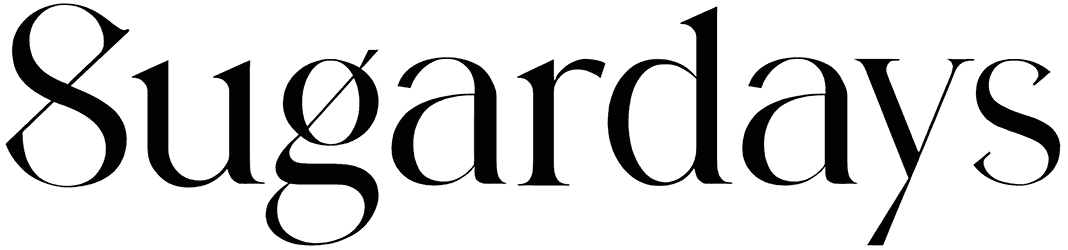
Sugardays Font
Isn’t it just the best when you leave everything to the fancy style of Sugardays and let it promote your business more fashionably than ever? Well, it takes only one try before you’re hooked for life.
Wherever you feel your logotype just isn’t stylish enough, this elegant font can be the solution to all your problems. That’s why this serif font belongs to your music shop logos, hotel signs, or business cards for content teams, interior designers, and other luxury professions.